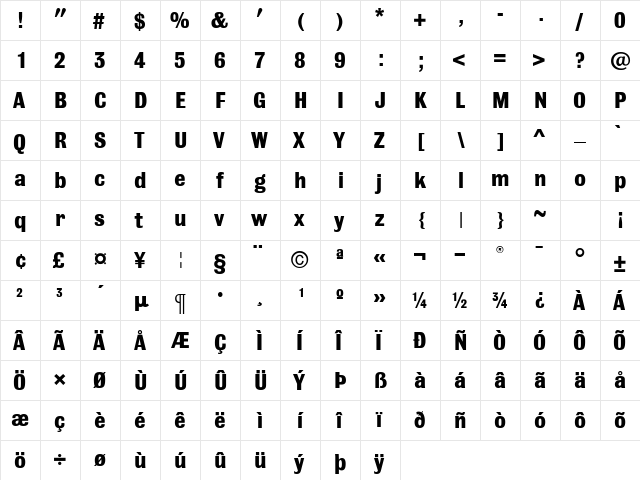
Bulldog Bold
Design Context for Bulldog Typeface
Bulldog takes a measured approach to typography — its balanced proportions and neutral character make it a reliable workhorse for both digital and print work. Its bold stroke weight gives it real presence on the page.